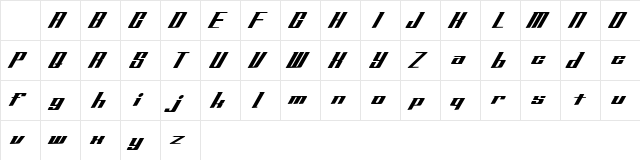
AddSpeedy Regular
Design Context for AddSpeedy Typeface
AddSpeedy offers clean, dependable letterforms without strong stylistic allegiance, making it a practical choice for designers who need flexibility.
Pro Tip: Pair AddSpeedy with a font of contrasting weight or personality to build a more expressive typographic hierarchy.